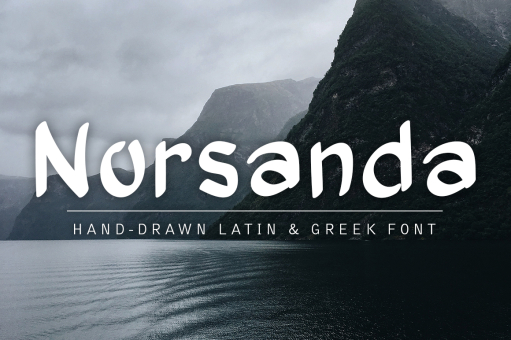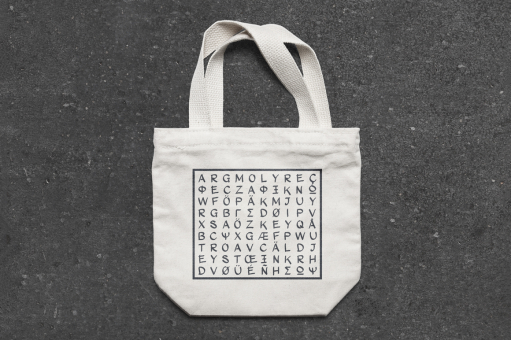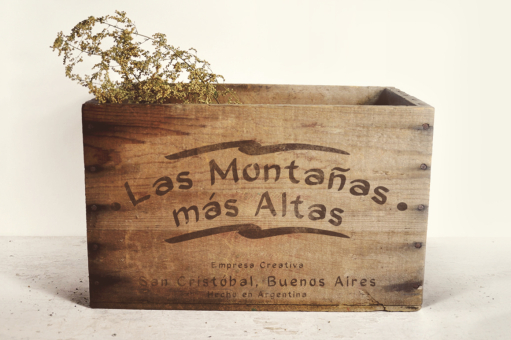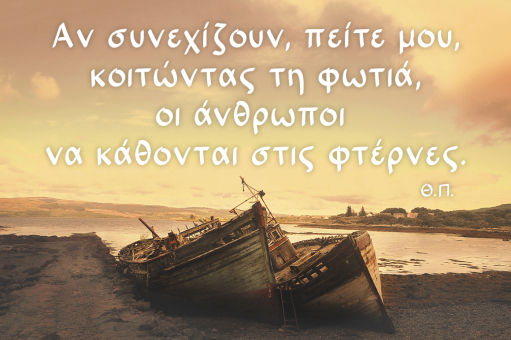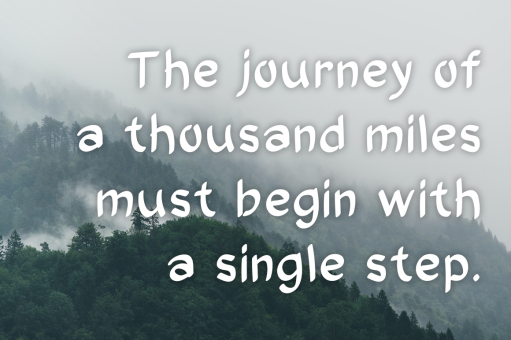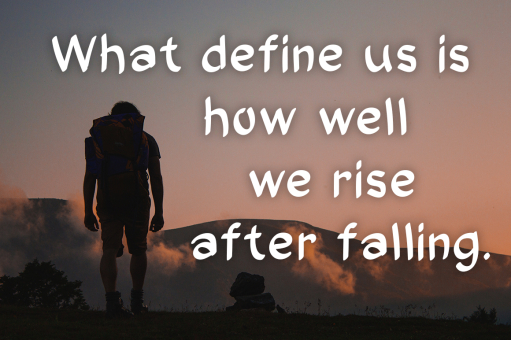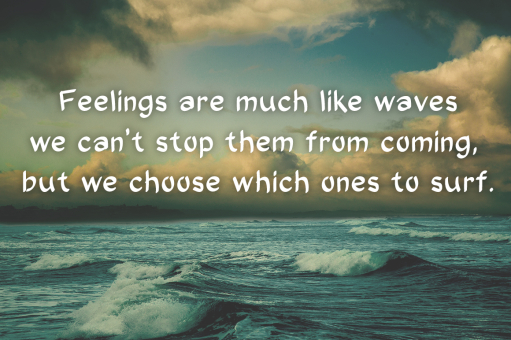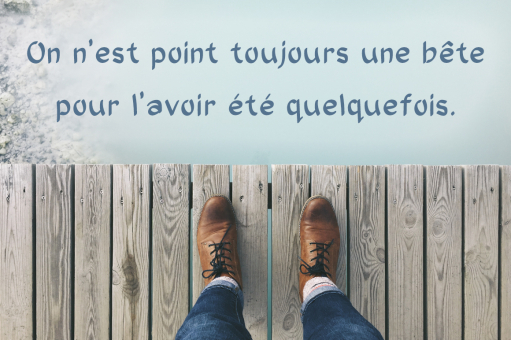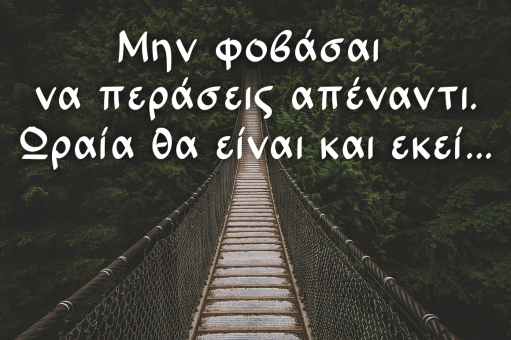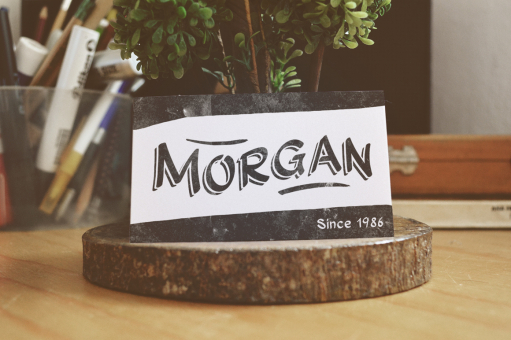
Norsanda
This is Norsanda, a hand-drawn multilingual font with a medieval touch.
This handmade typeface includes all Latin and Greek uppercase and lowercase letters, numerals, punctuation, symbols and multilingual characters.
More than 60 multilingual characters and accents
Supports more than 14 languages including: • English • Greek • Spanish • French • Italian • German • Swedish • Danish • Norwegian • Finnish • Portuguese • Catalan • Dutch • Icelandic ...among others. (All characters and examples of some languages can be checked on the presentation images.)
Norsanda is ideal for both short and long text. You can use it in a range of items like logotypes, packaging, posters, branding, book covers, quotes, magazines, wedding stationery as well as paragraphs and books content.
It works great for both modern and old style work as it contains a small touch of a medieval and light gothic look, especially when used on large text paragraphs.